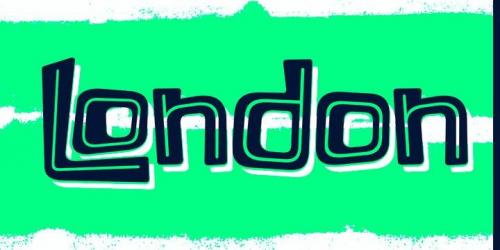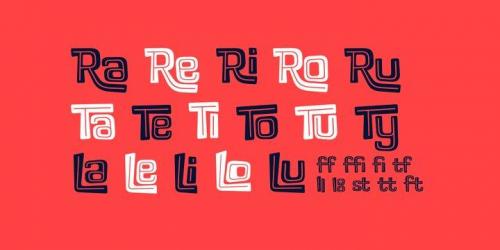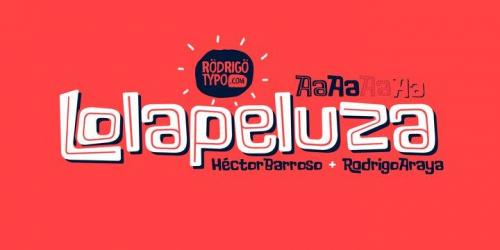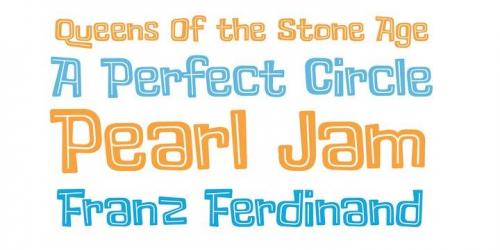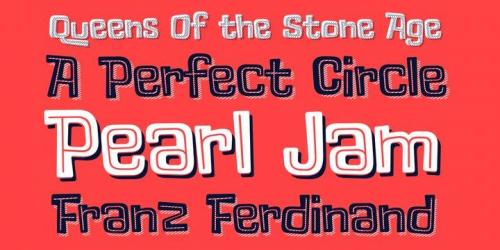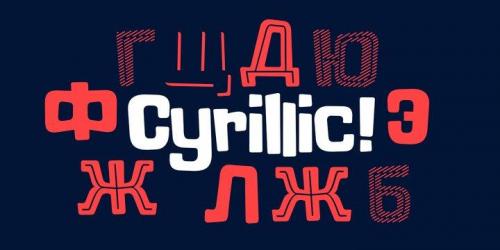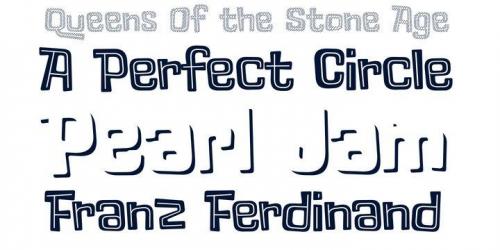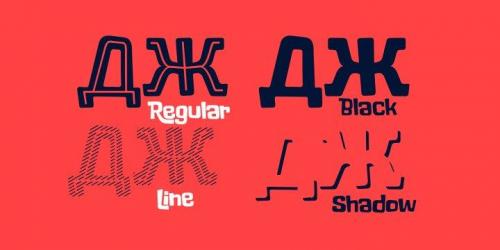
Lollapalooza /ˌlɒləpəˈluːzə/ (Lolla) is an annual four-day music festival held in Grant Park in Chicago, Illinois. It started as a touring event in 1991. Music genres include but are not limited to alternative rock, heavy metal, punk rock, hip hop, and electronic music. Lollapalooza has also featured visual arts, nonprofit organizations, and political organizations. The festival in Chicago’s Grant Park hosts an estimated 400,000 people each July and sells out annually. Lollapalooza is considered one of the largest and most iconic music festivals in the world and one of the longest-running in the United States.
Inspired by the logo from “Lollapalooza”.
The intention was to design a cheerful, entertaining typeface. Lolapeluza works perfectly for designs for children and youth. 4 variants are also included: -Regular: Basic set -Black: Heavy -line. Lolapeluza can run over or behind a text -Shadow. A Cyrillic alphabet is also included to enhance but the typography is more a set of alternatives.